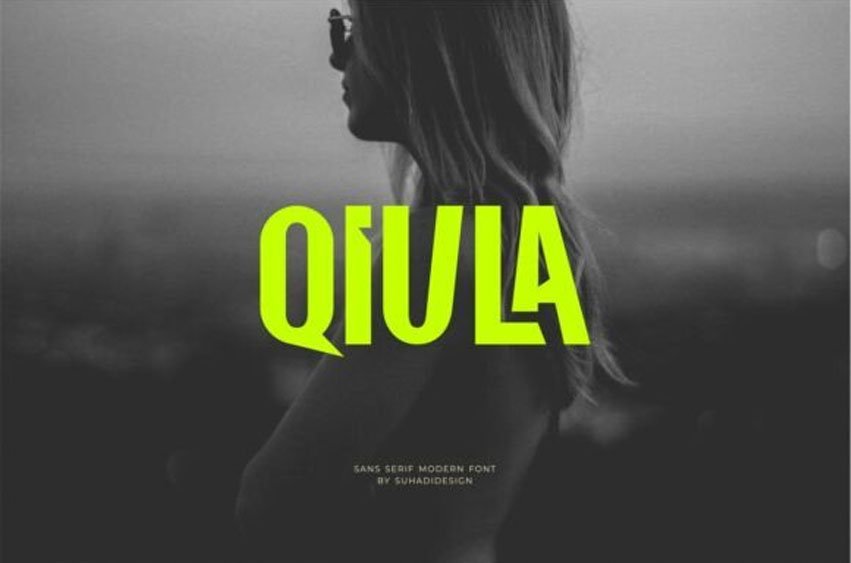
Qiula Font is a cutting-edge all-caps sans serif font that commands attention with its bold geometry and modern flair. Each letterform features dynamic cuts and angular notches, giving the font a futuristic, tech-inspired look.
With over 130 stylish ligatures, Qiula offers expressive customization, making it perfect for branding, posters, editorial layouts, streetwear designs, and music-related artwork. Its clean, condensed build makes a striking impact in both digital and print formats.